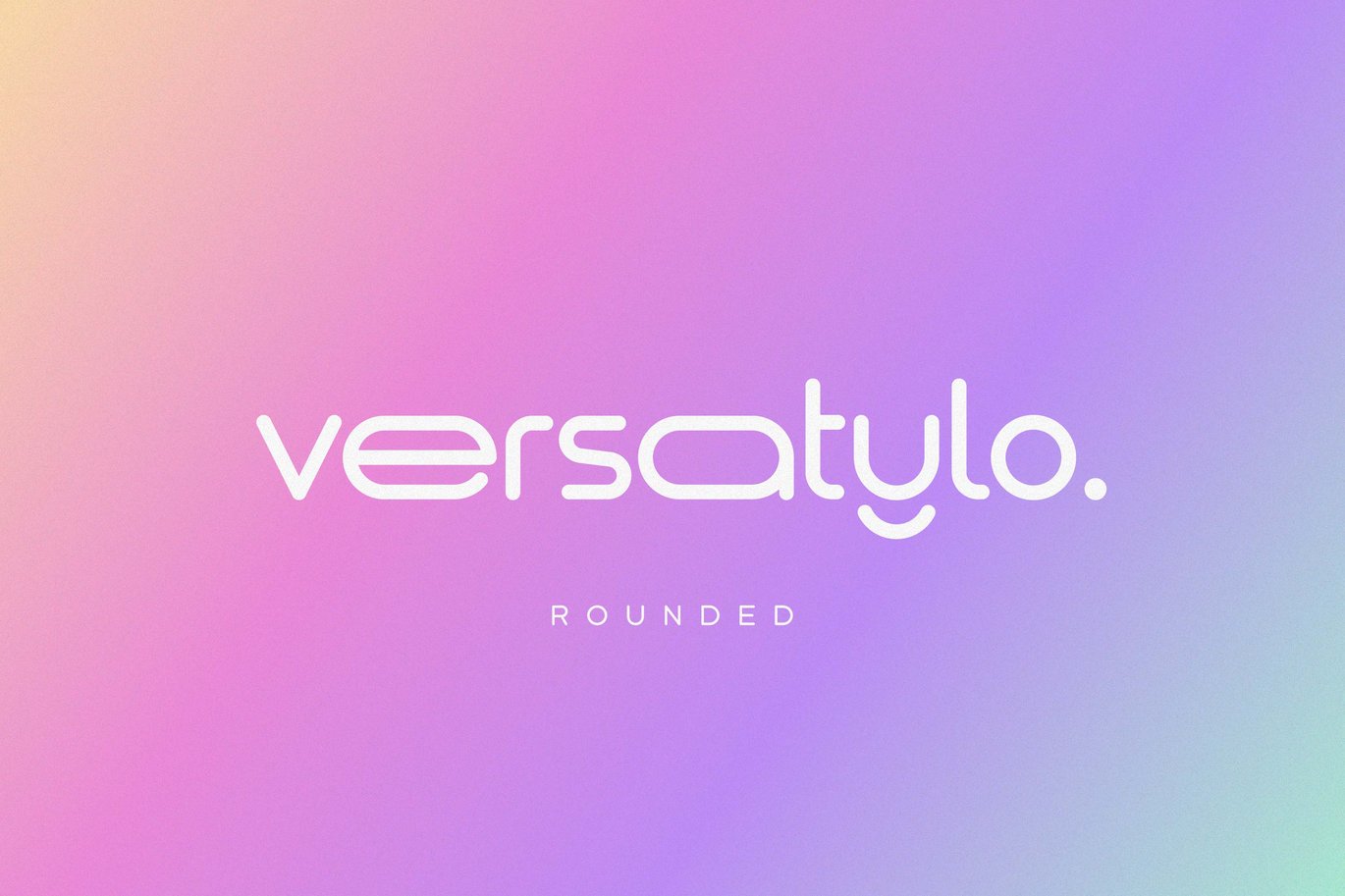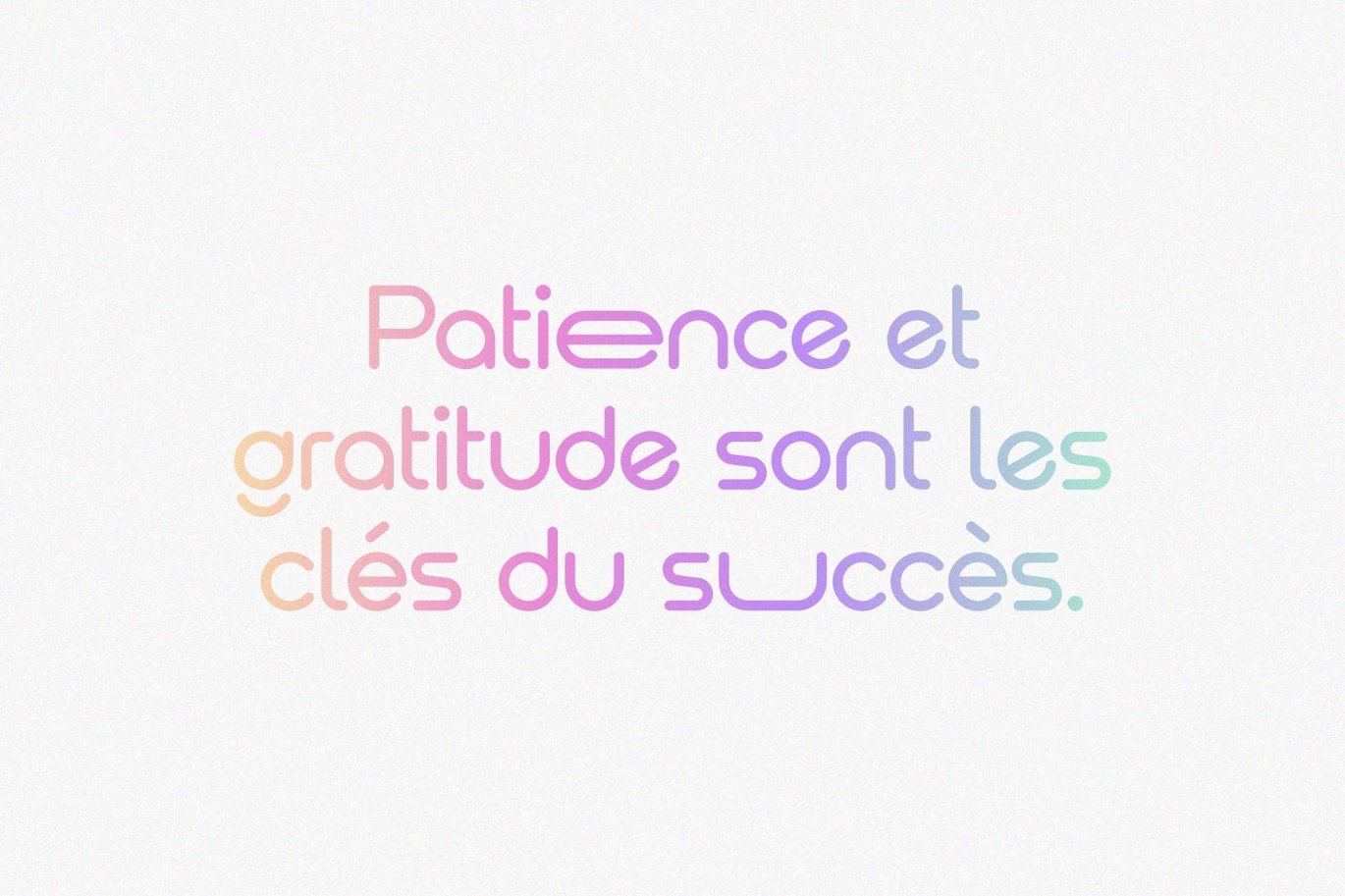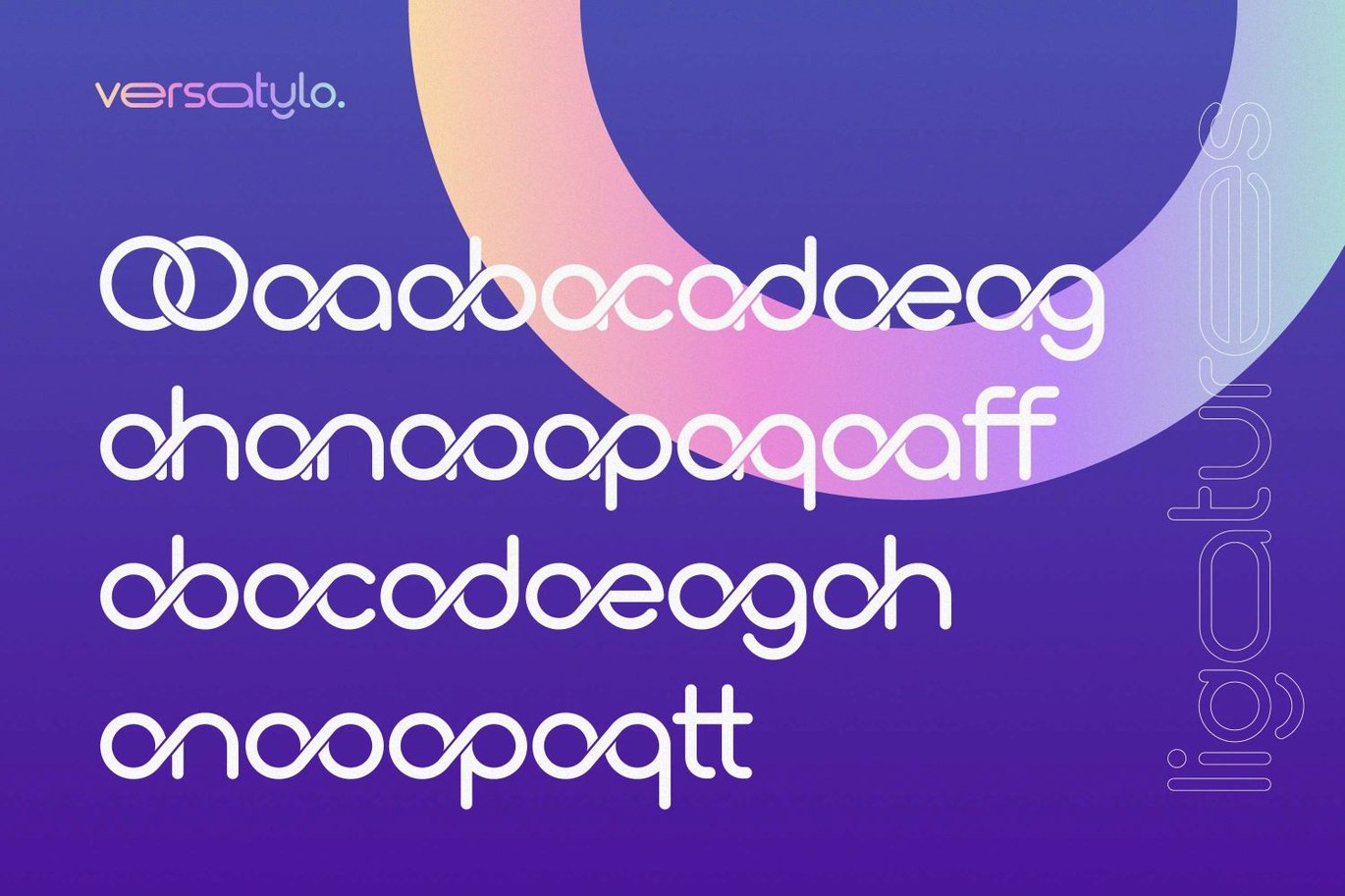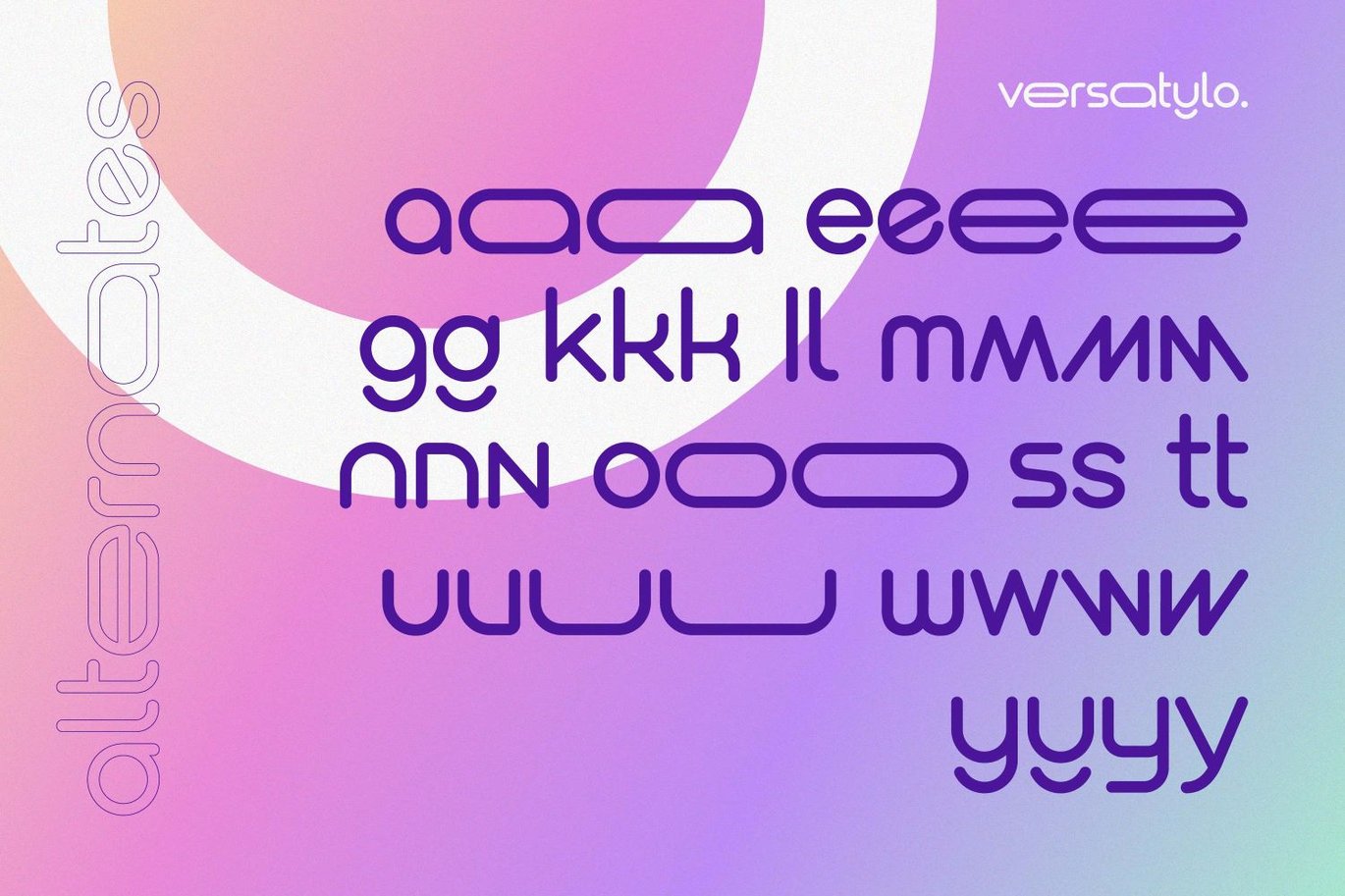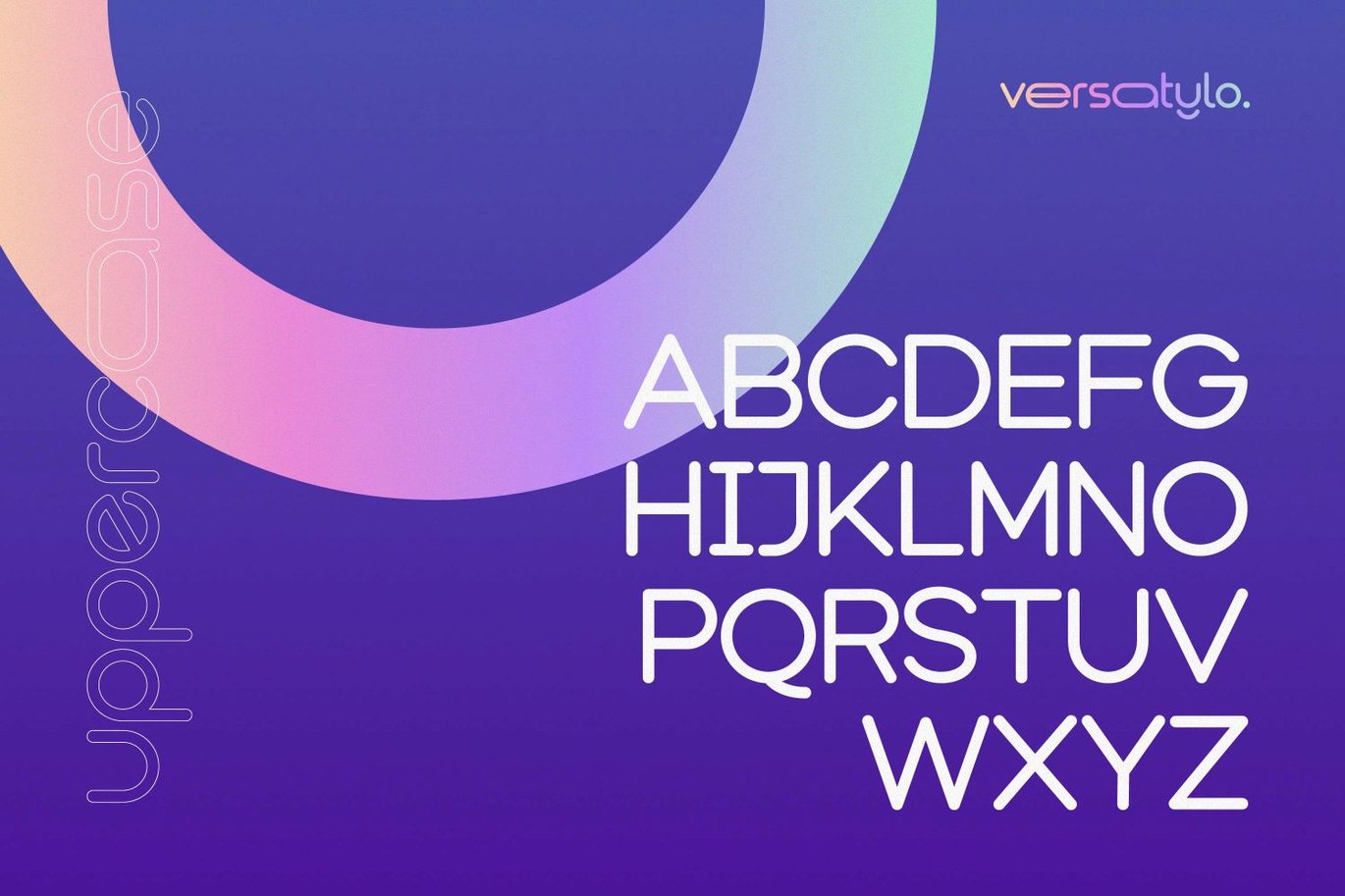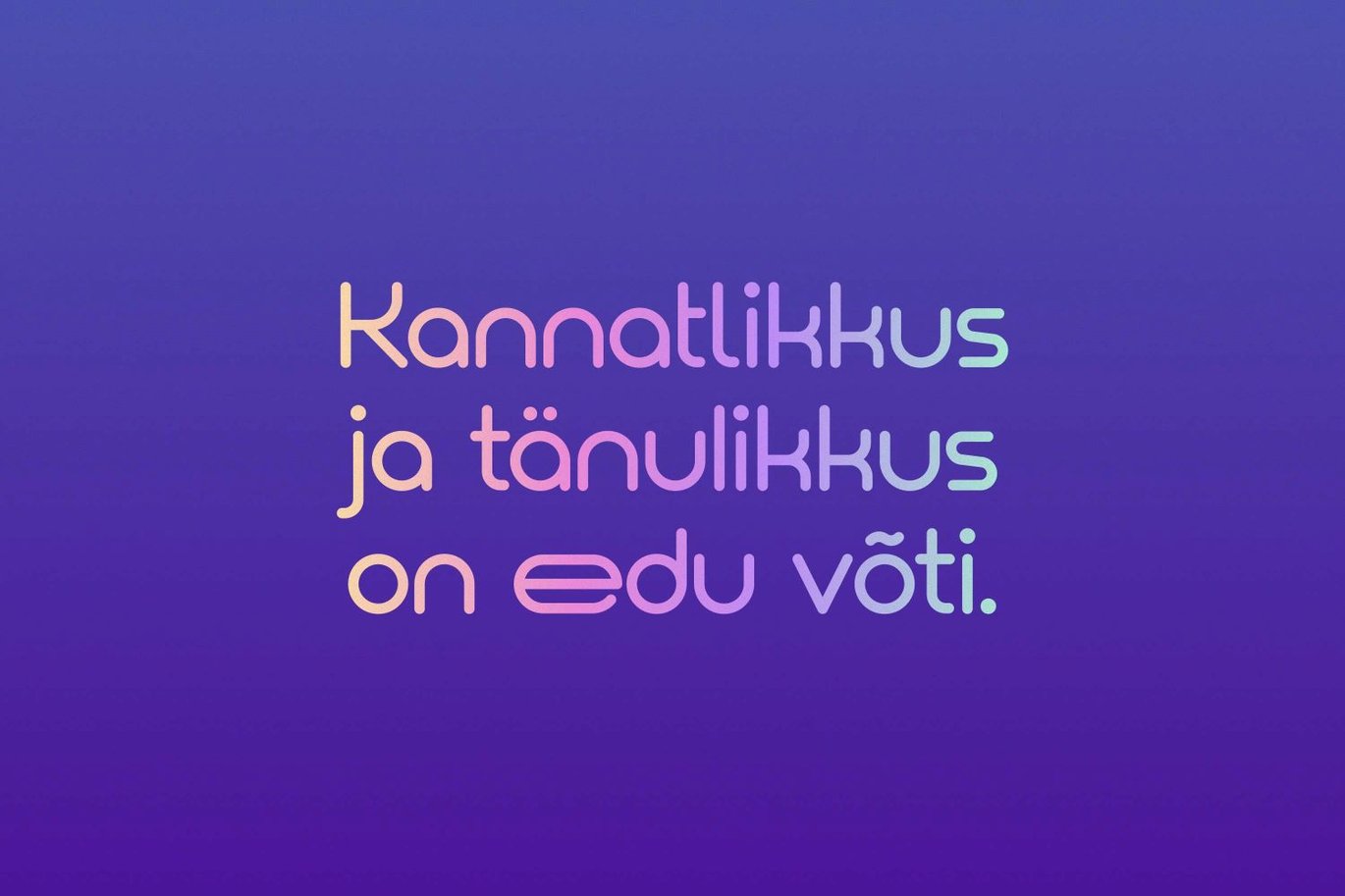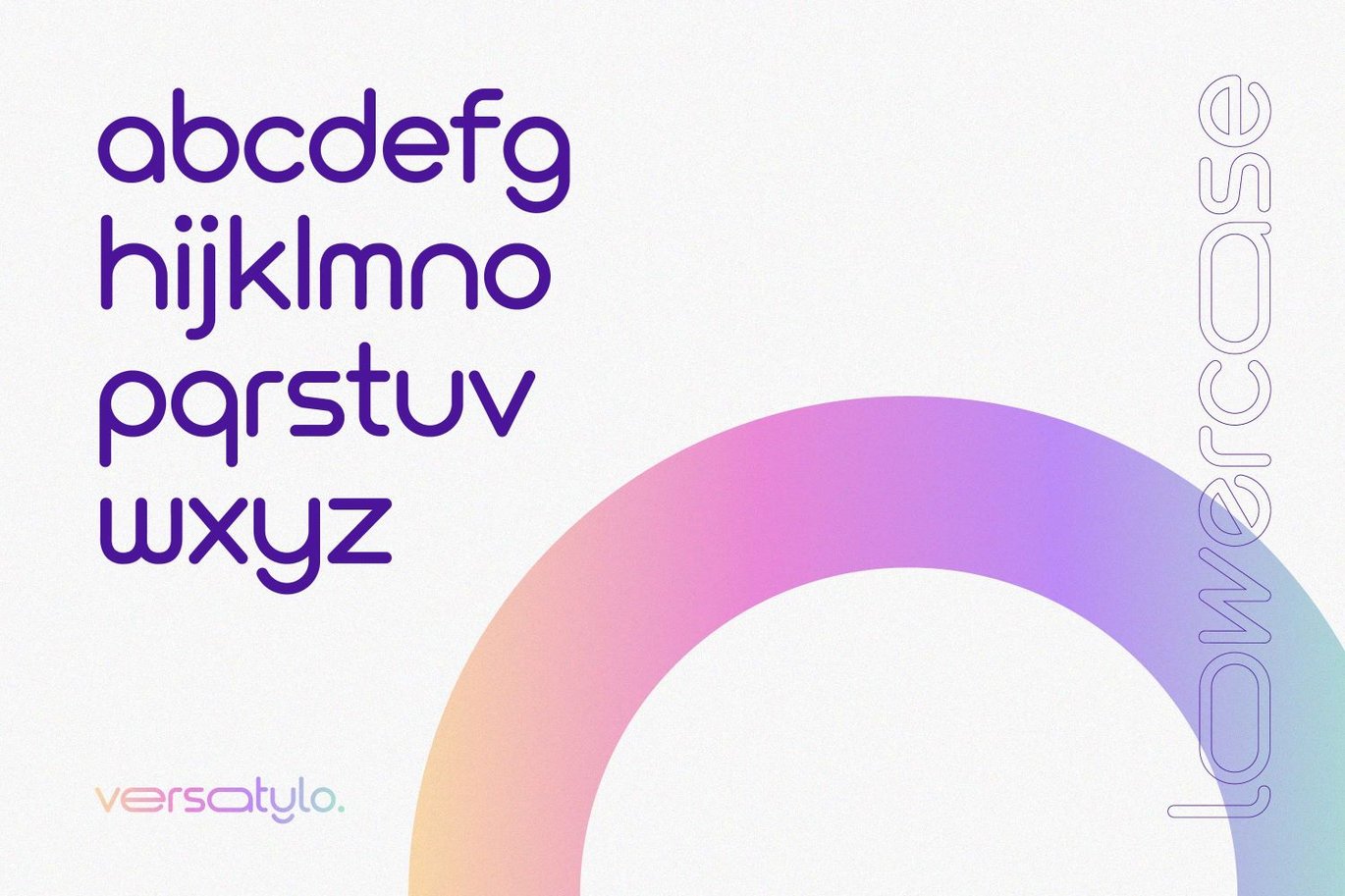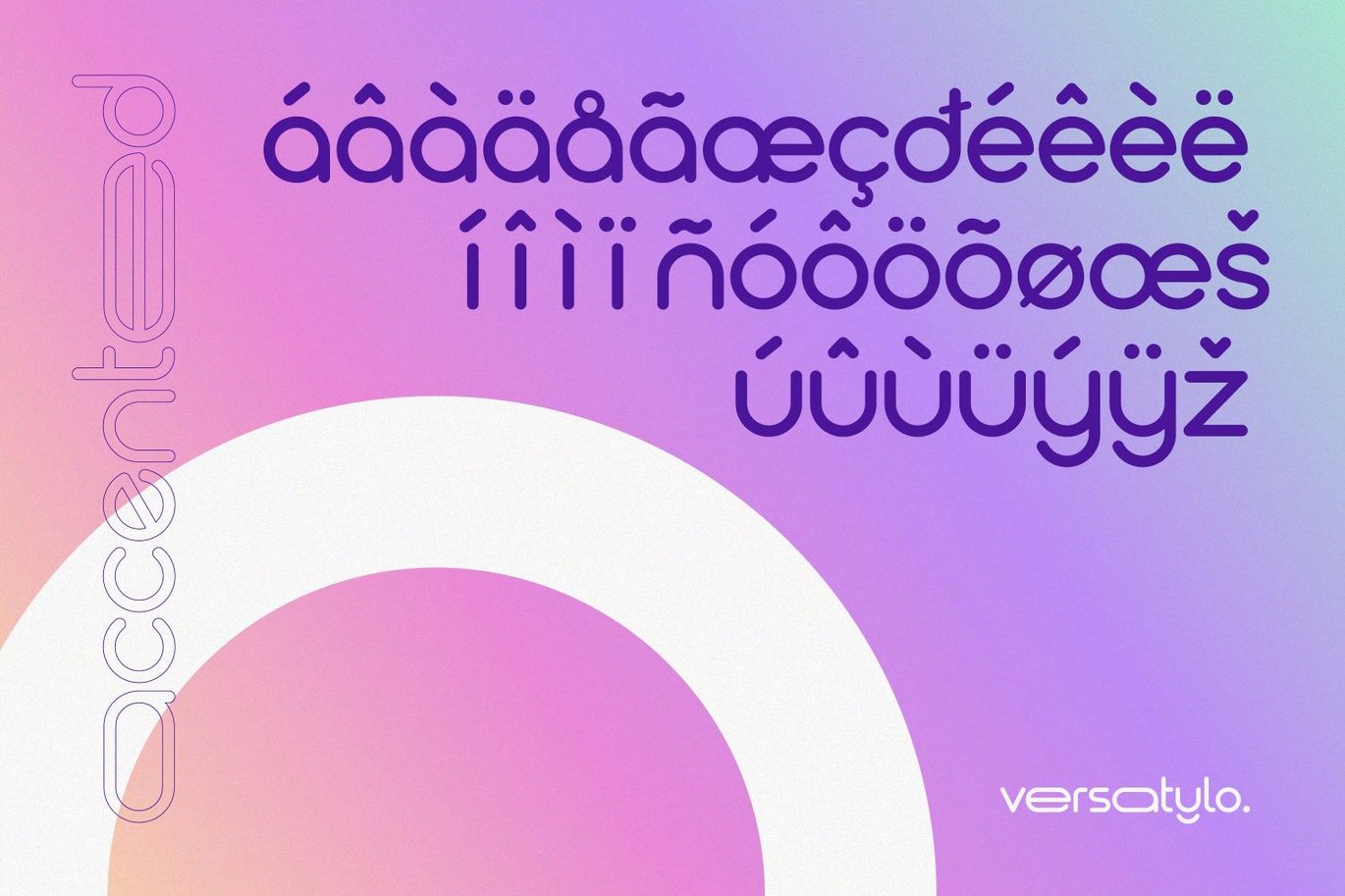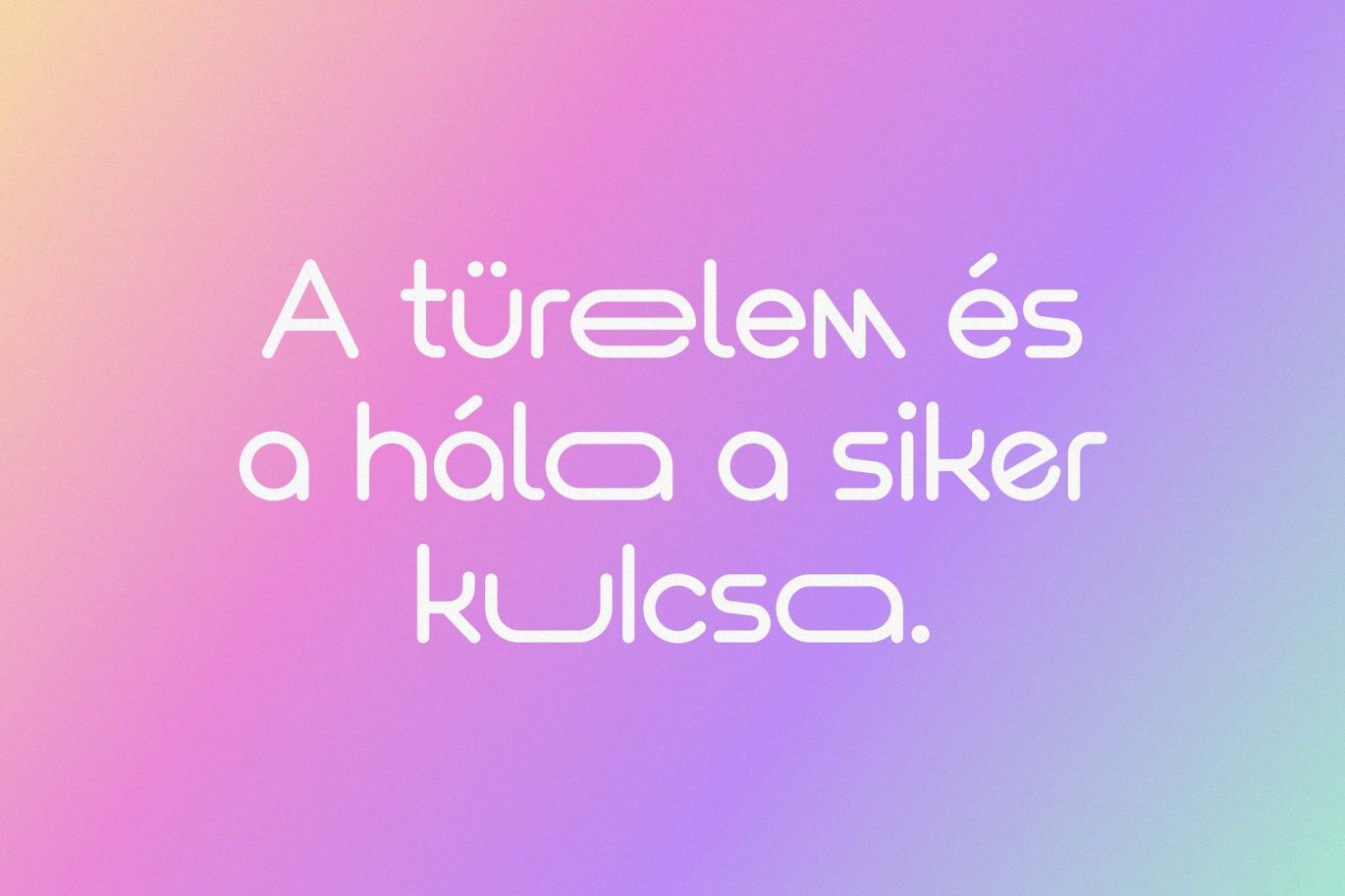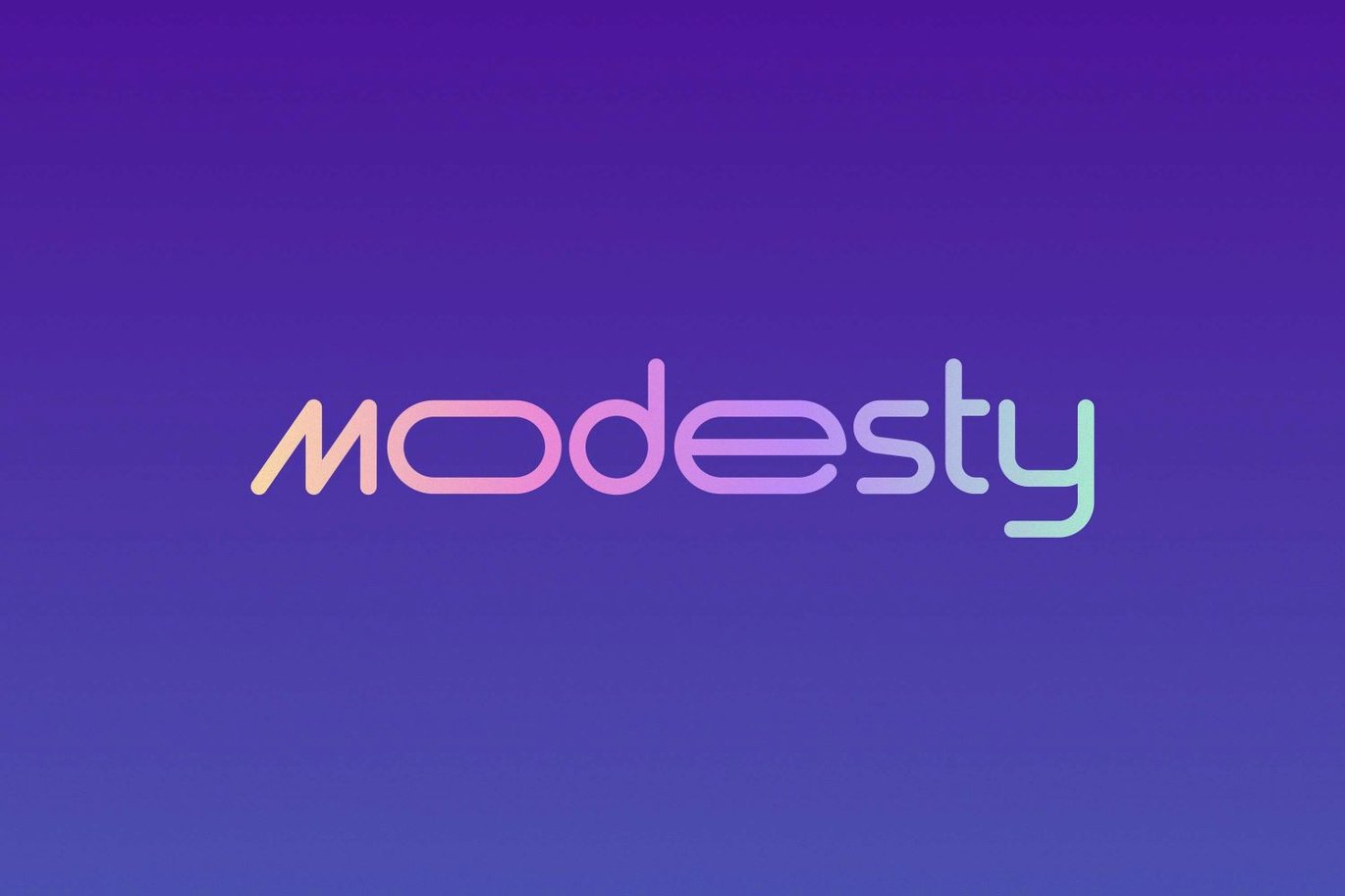
Versatylo Rounded – Logo Font
Versatylo is a very strong and outstanding branding font that is usable in any company that wants to make its image look modern and high technology. So, let’s make your own logotype with this font.
FONT FEATURES
- Additional Accents
- 66 Languages
- Kerning